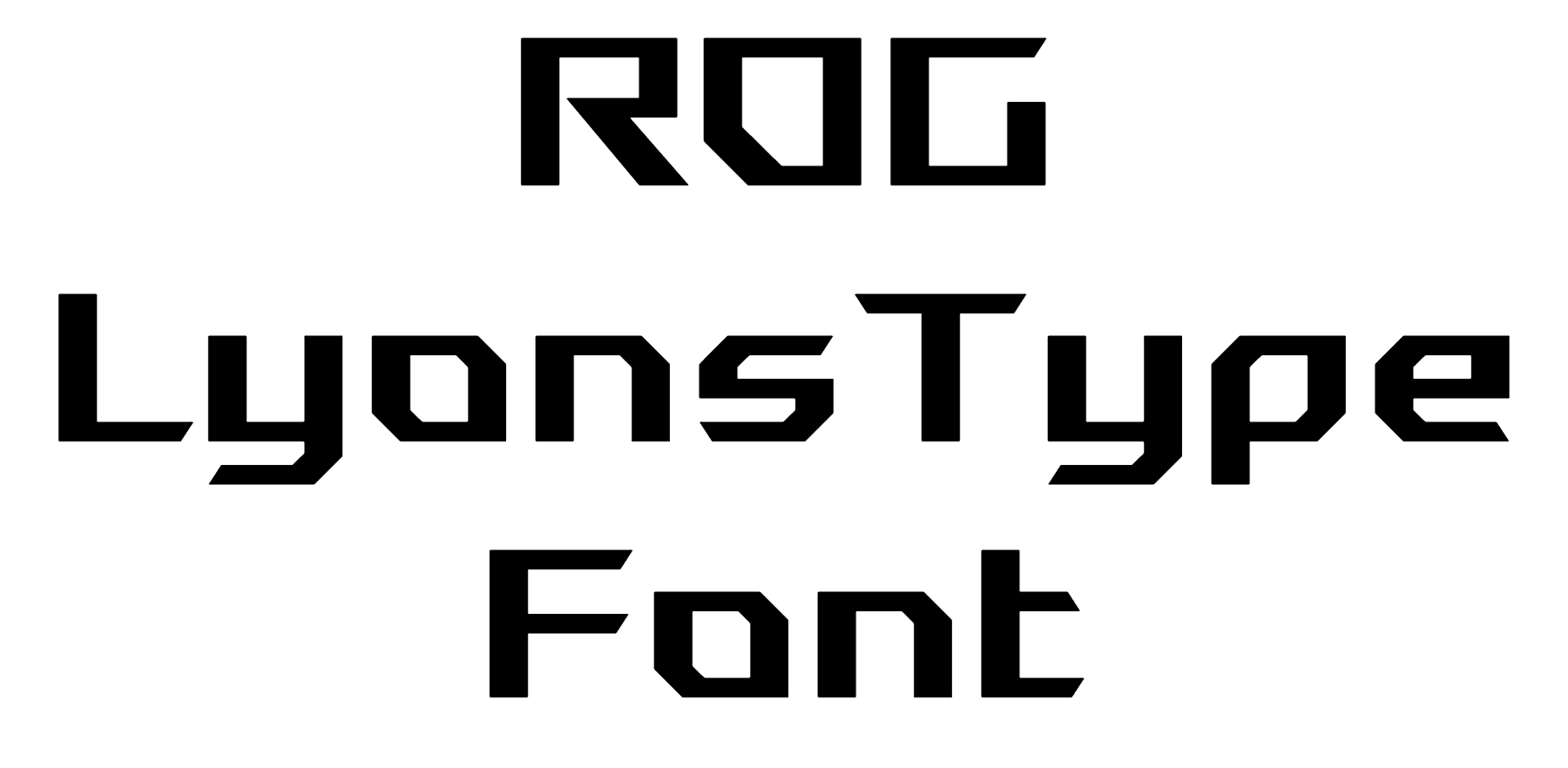
Can I Use the ROG Lyonstype Font for My Game Logo and Intro?
I’ve been analyzing a lot of modern games lately, and I noticed that many of them use the ROG Lyonstype font (or something very similar) in their titles, menus, and intros.
I really like its futuristic and tech-inspired look — it perfectly matches the theme of my upcoming game.